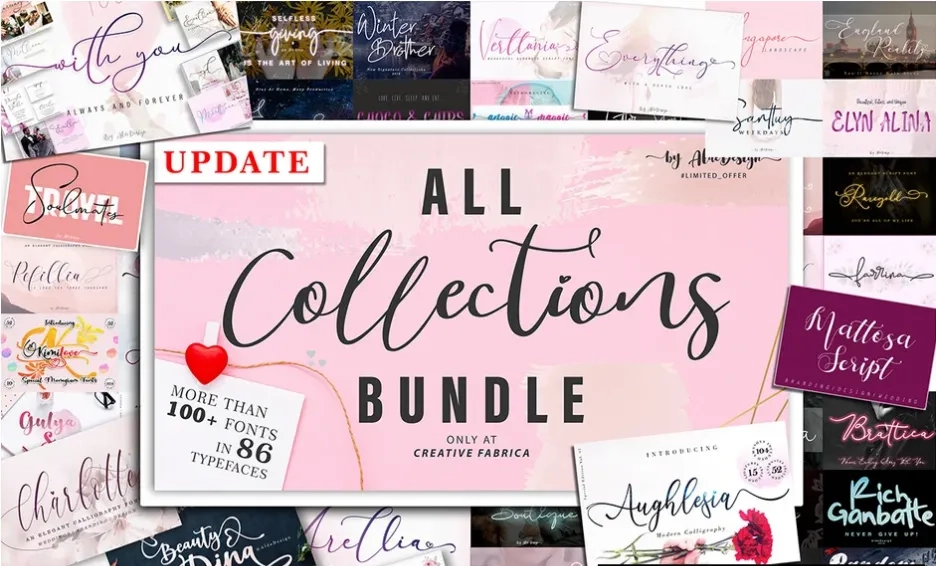
All Collections – Font Bundle
Introducing the All Collections – Font Bundle, a carefully curated selection of versatile typefaces designed to elevate your creative projects. This bundle features a variety of styles including serif, sans-serif, script, and display fonts, ensuring you have the perfect typography for any application.
• Multiple font styles: serif, sans-serif, script, and display
• Various weights and styles for flexibility
• High-quality design suitable for both web and print
• Easy to read and aesthetically pleasing
• Designed for professional use in branding, logos, and more
• Ideal for creating unique branding materials
• Perfect for web design, ensuring readability and style
• Use in print projects like business cards and brochures for a polished look